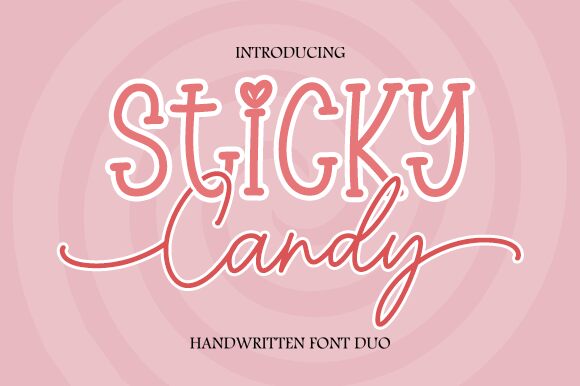
Candy
Looking for a font that's as sweet as its name? Candy, designed by Graphix Line Studio, is a playful and charming handwritten font that brings a touch of whimsy to any project.
With its semi-light weight, it's perfect for adding a delicate and friendly feel to invitations, greeting cards, and social media graphics. Its unique characteristics make it stand out in a sea of standard fonts, making it ideal for branding and logo design. Whether you're working on a children's book or crafting an eye-catching poster, Candy is the perfect choice for adding a touch of fun and personality to your creative projects.